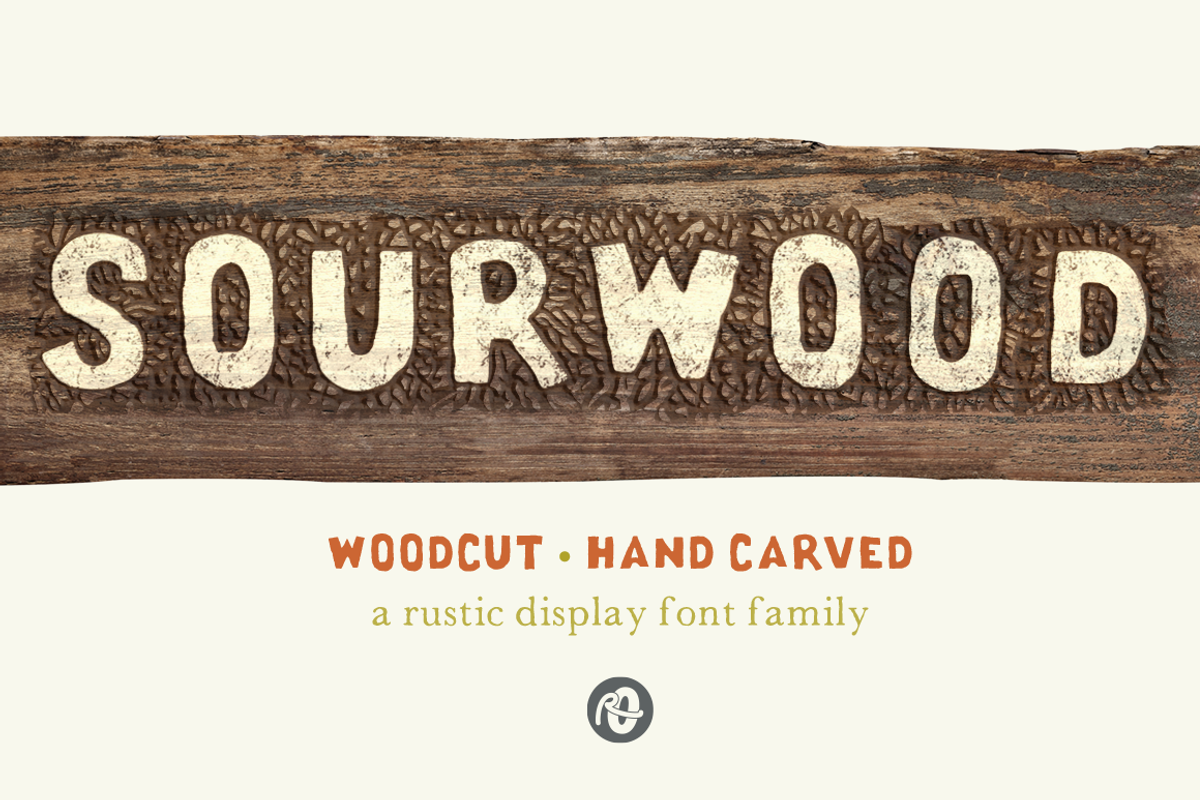
Sourwood: Woodcut Font Family Free Download is a rustic, handcrafted typeface inspired by traditional woodcut printing techniques. With its rugged texture and vintage charm, Sourwood is ideal for projects that need an organic, earthy, or historical feel. Whether you're designing for craft packaging, outdoor branding, folk music posters, or artisanal labels, this font brings authenticity and character to your work.
The Sourwood font family includes multiple styles, allowing for flexible and layered design options. Its hand-carved appearance creates a bold statement while maintaining a natural and approachable tone. It works beautifully in both digital and print formats, standing out with its detailed, tactile design.